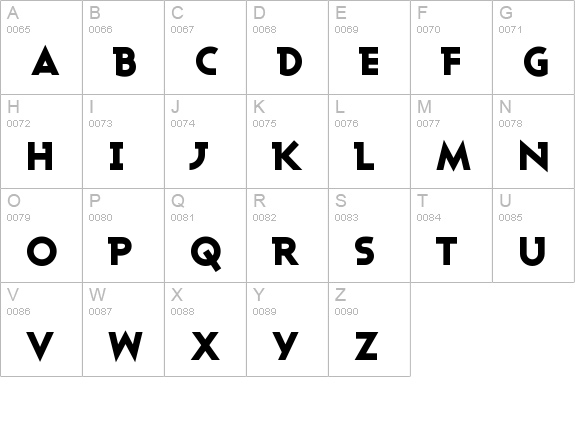
Ashby Black is a maximum-weight, dramatic variant in the Ashby typeface family \xE2\x80\x94 well suited to maximum-impact headlines, posters, and packaging.
Ashby Black font is a bold and impactful typeface that exudes sophistication and elegance. Its sleek lines and sharp edges make it perfect for creating eye-catching designs that command attention. This font is ideal for headlines, logos, and branding materials that require a strong and modern look. Best of all, Ashby Black font is completely free to download at FontsMarket.com. Whether you're a seasoned designer looking to add a new font to your collection or a beginner looking to experiment with different styles, this font is a versatile and reliable choice. Don't miss out on the opportunity to enhance your projects with the striking beauty of Ashby Black font – download it for free today!